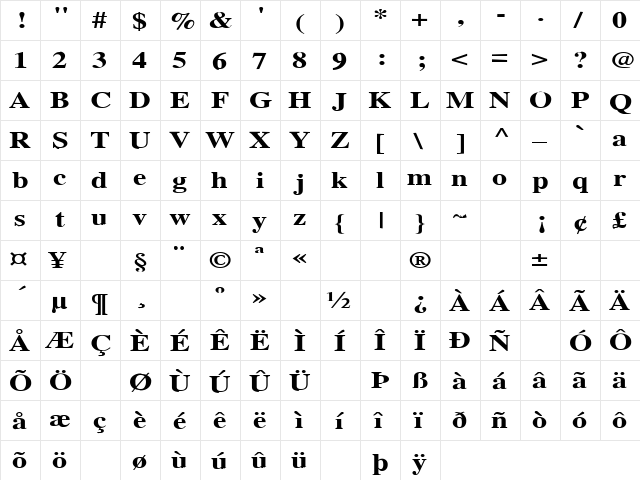
Walkin' The Dog 9 Regular
Design Context for Walkin' The Dog 9 Typeface
Walkin' The Dog 9 offers clean, dependable letterforms without strong stylistic allegiance, making it a practical choice for designers who need flexibility.